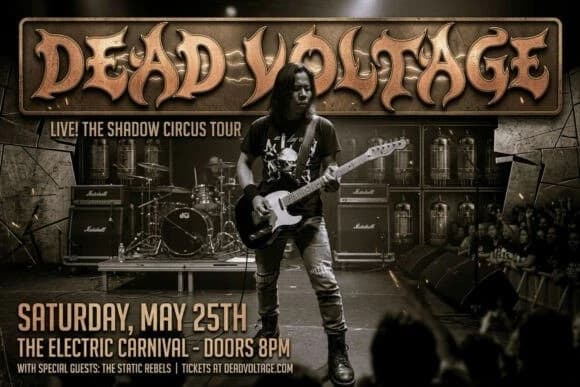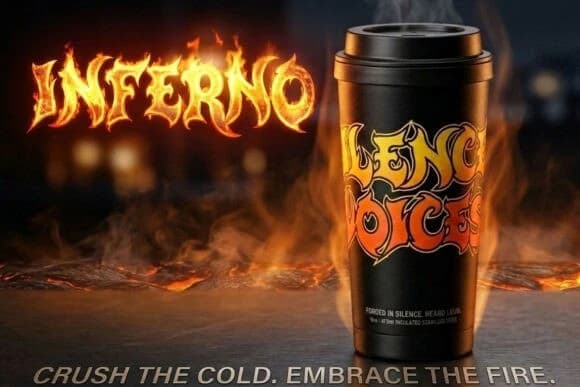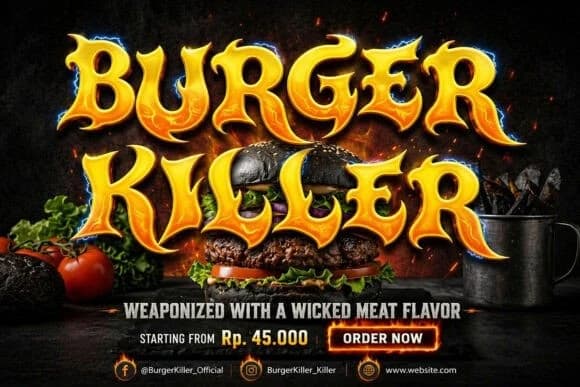
Monst Tagger Font
Monst Tagger Font, a modern blackletter font designed for high-impact visual storytelling. This massive typeface features aggressive, flame-like letterforms characterized by sharp, curling terminals and a heavy architectural silhouette that radiates a sense of unyielding power